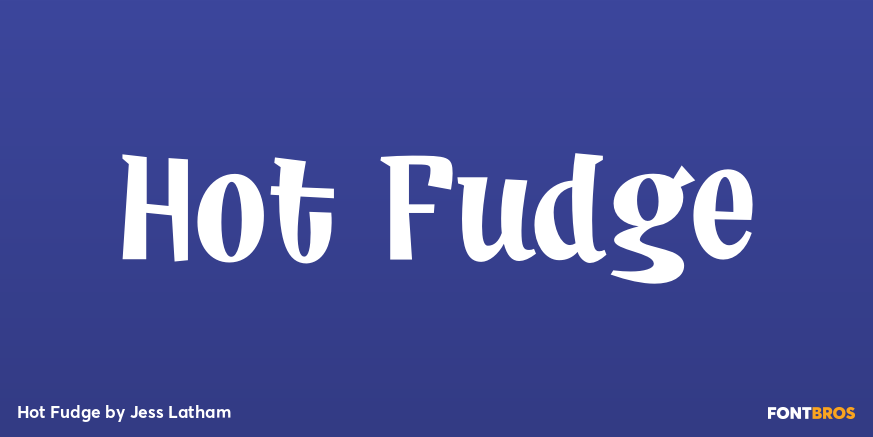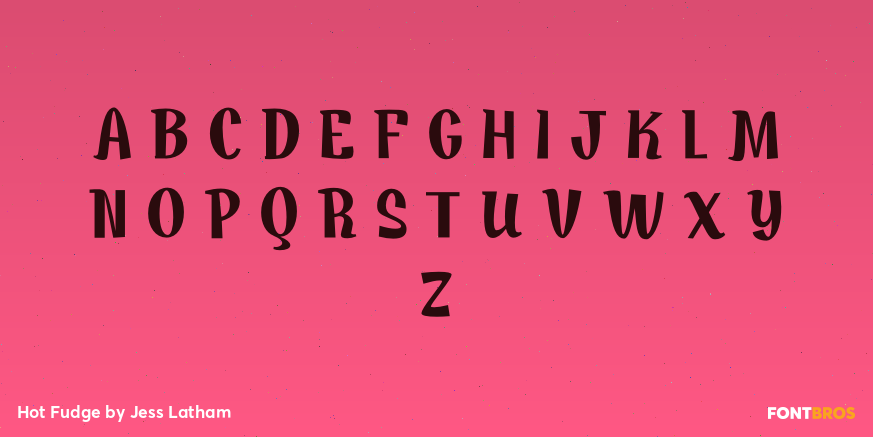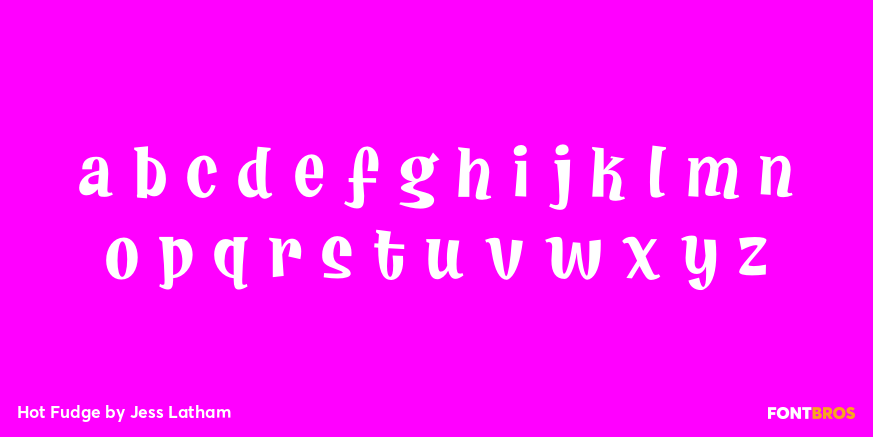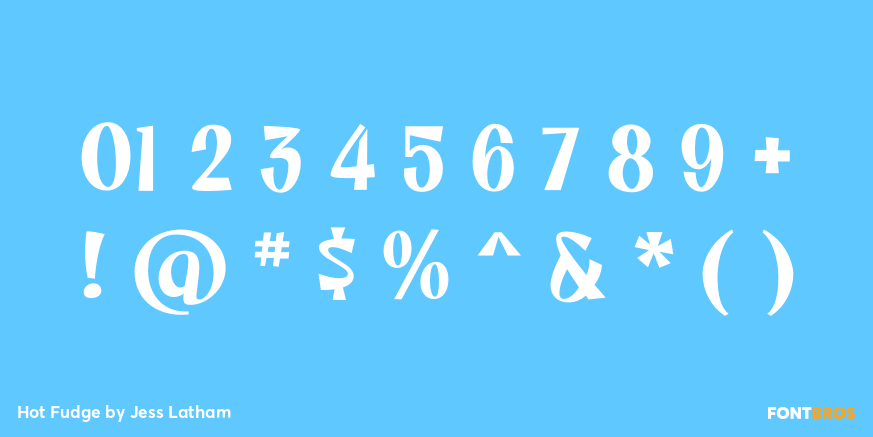
Hot Fudge
Font Family by Jess Latham
My new font Hot Fudge oooozes a syrupy sensuality. Fun flips and an undulating base line combine to create a whimsical typeface that can be used anywhere you want to add a touch of sweetness.